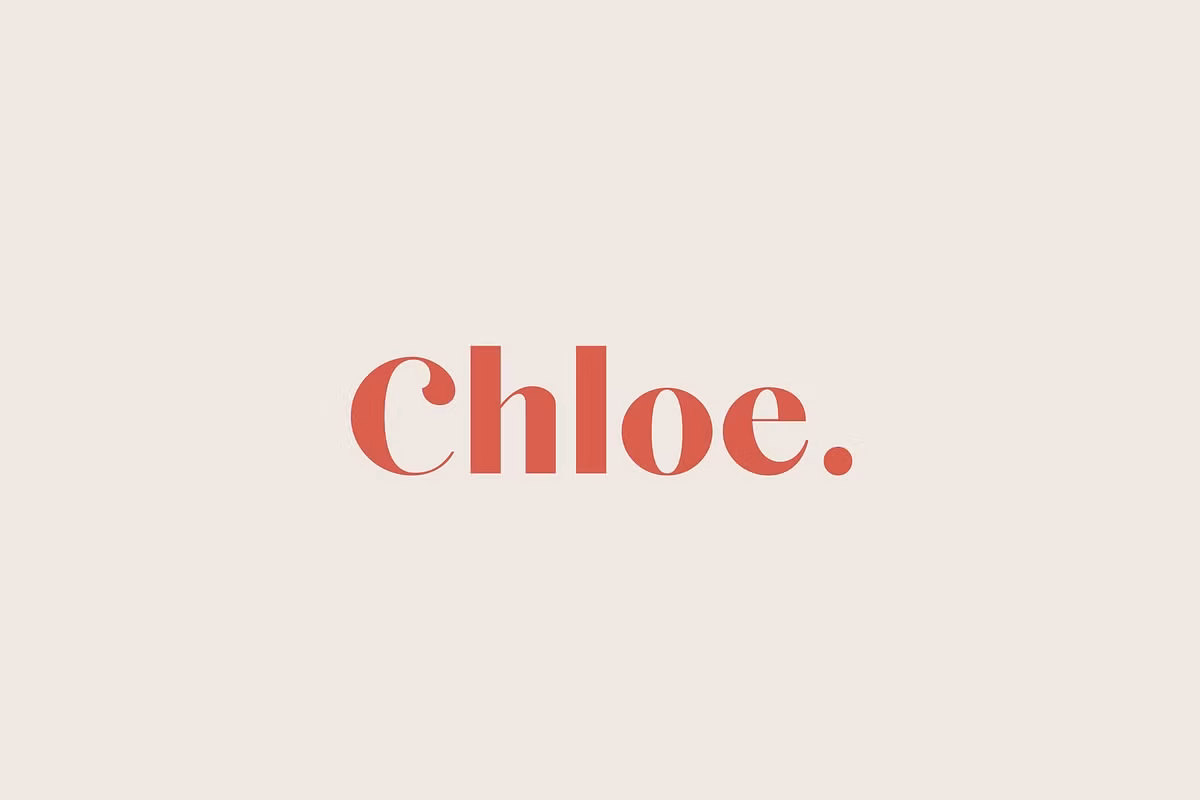
Chloe - A Classic Typeface Free Download
The Chloe - A Classic Typeface Free Download is a refined and timeless font designed to bring elegance and sophistication to your designs. With its graceful, well-balanced letterforms and classic style, this typeface is perfect for creating high-end branding, luxury logos, invitations, and editorial layouts. Whether you're working on wedding materials, professional branding, or upscale marketing materials, Chloe will enhance your typography with its elegant and polished appearance. Its versatile design makes it suitable for both print and digital media, ensuring your projects stand out with style. Please note, for commercial use, a license purchase is required. However, you can easily download the Chloe - A Classic Typeface Free Download for free for personal use and explore its creative potential. Download the Chloe - A Classic Typeface Free Download today and add a touch of classic elegance to your designs.